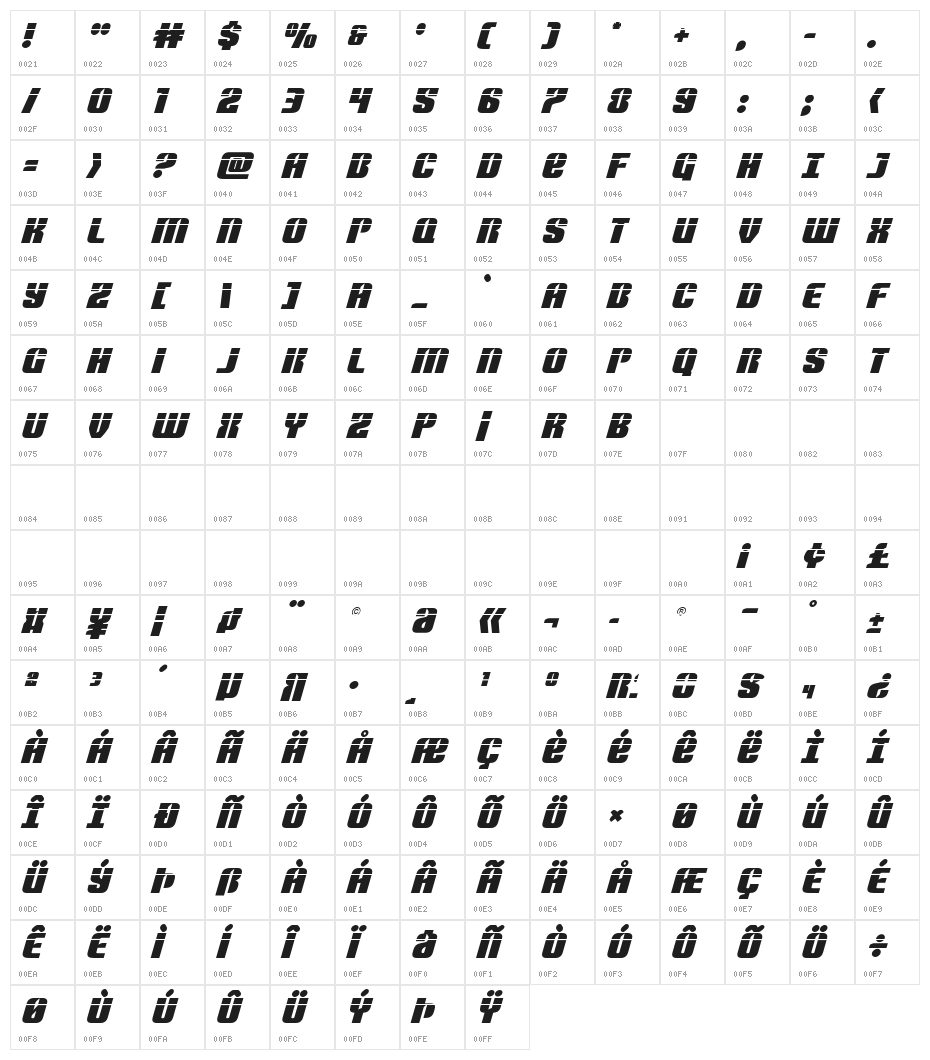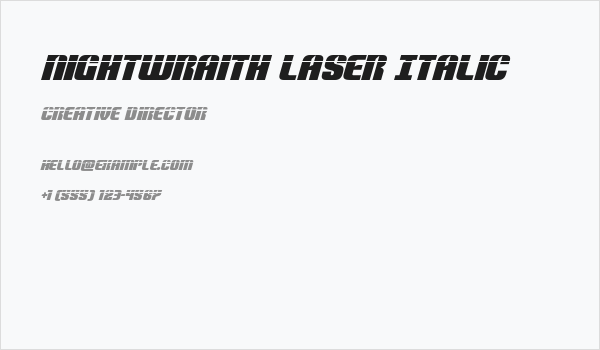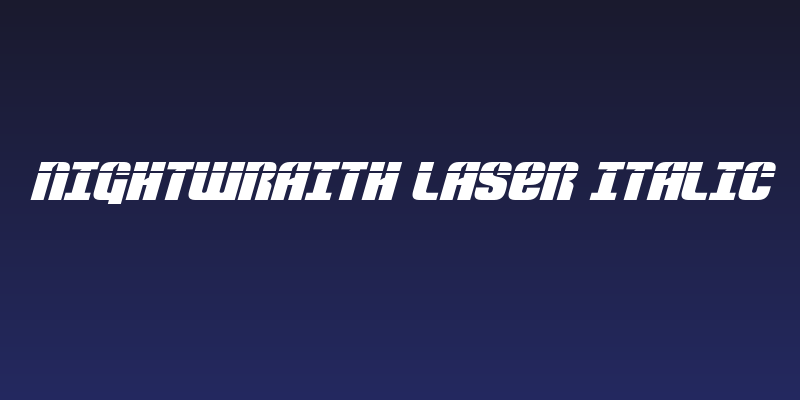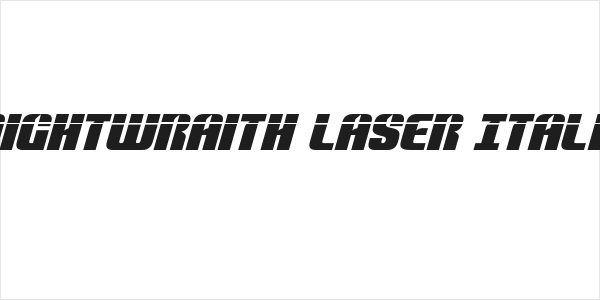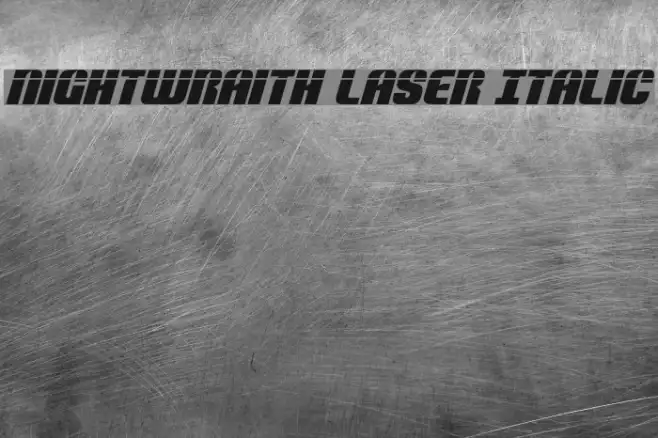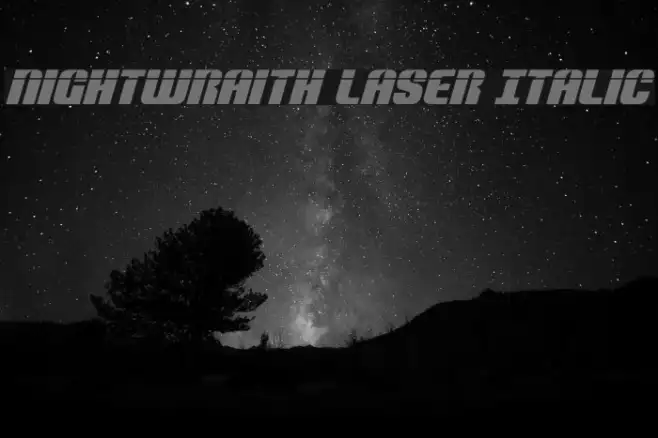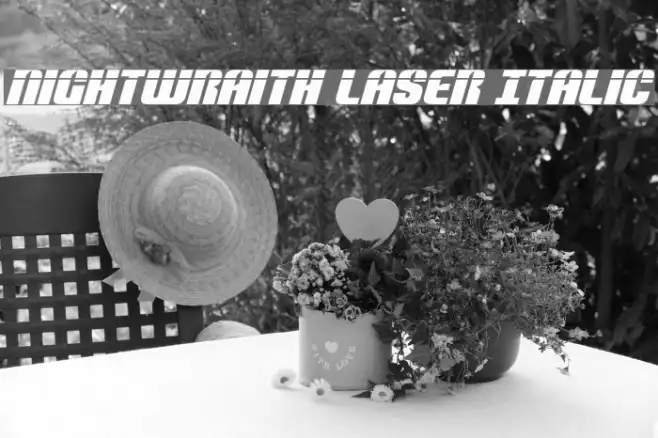
Nightwraith Laser Italic Font
Nightwraith Laser Italic Description
This font features a bold, italicized style with a futuristic and dynamic appearance. The characters are sharply angled, giving them a sense of motion and speed. The design incorporates a strong geometric influence, with each letter exhibiting a consistent slant and thick strokes. The uppercase and lowercase letters maintain a uniform height, enhancing the font's cohesive look. The numerals and special characters follow the same stylistic cues, ensuring a seamless integration across different uses. This font's distinct style makes it ideal for projects that require a modern and energetic aesthetic.
| Proposed Projects | Ideal for sci-fi themed designs, video game titles, tech branding, and dynamic posters. |